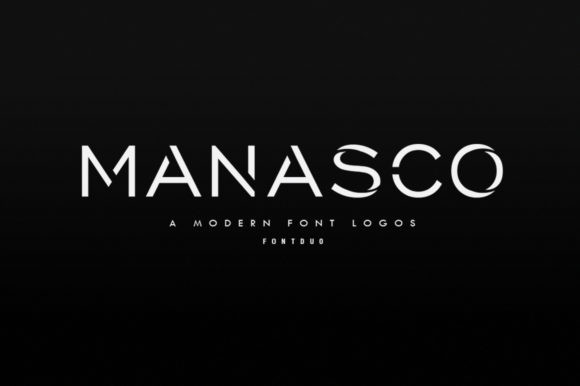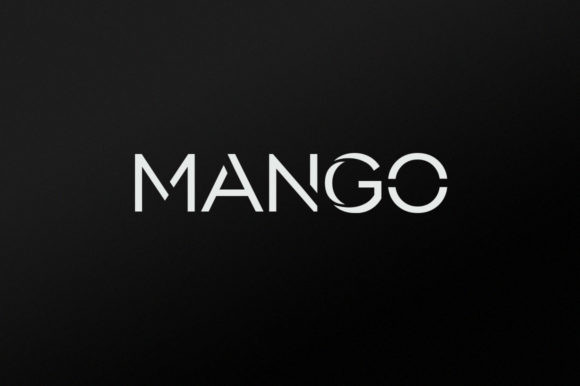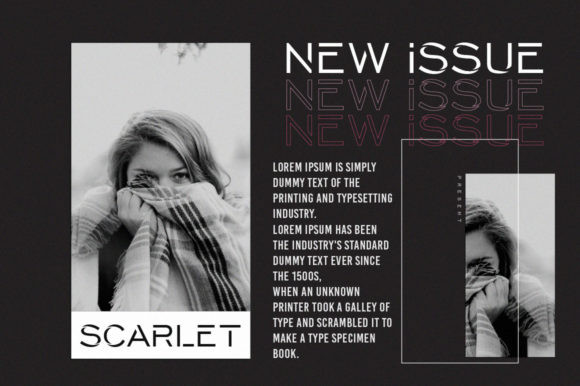
Monasco Font
Manasco is a simple and elegant sans serif font. Suitable to a wide variety of designs due to its neat style, Manasco has the potential to become your favorite go-to font, no matter the occasion!